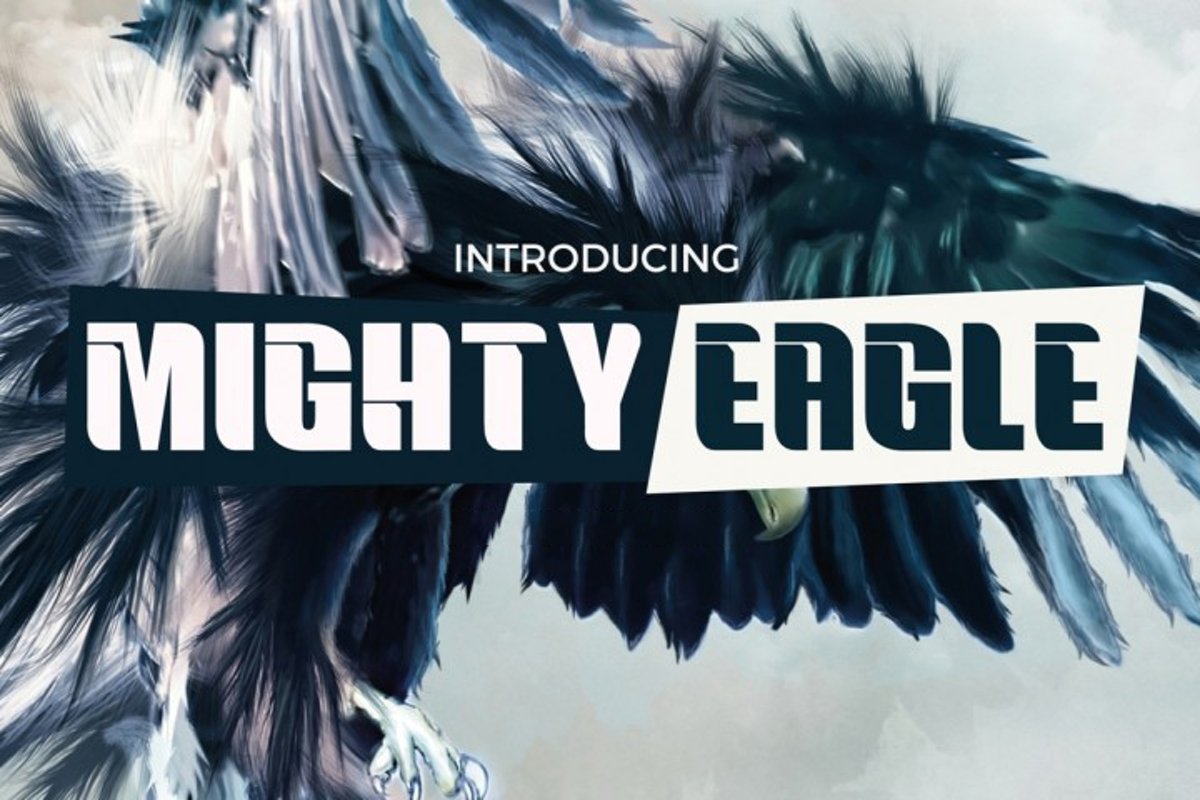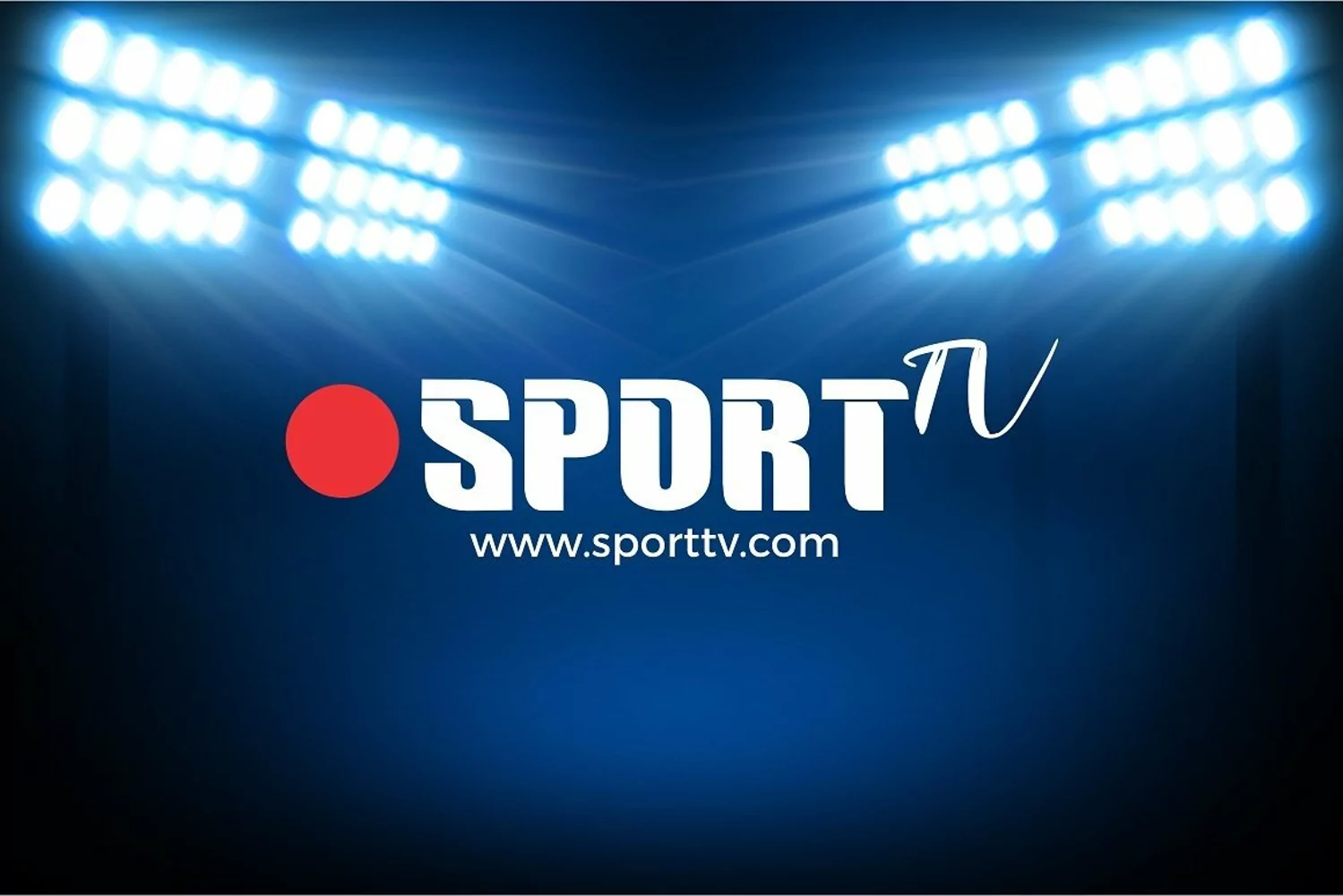
Introducing
Mighty Eagle Font, a modern, sporty logo type font. This uppercase font has
numbers and punctuation and is perfect for anything that requires a big, bold
and stand out font!